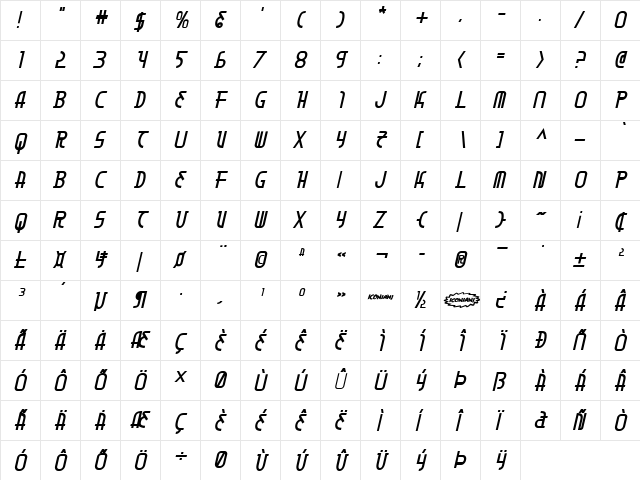
Design Context for Moon Dart Bold Italic Typeface
Moon Dart Bold Italic takes a measured approach to typography — its balanced proportions and neutral character make it a reliable workhorse for both digital and print work. The slanted form adds forward momentum and visual energy. Its bold stroke weight gives it real presence on the page.
Pro Tip: Try Moon Dart Bold Italic for annotation and caption copy alongside an upright companion — the contrast in angle creates a dynamic but ordered typographic system.